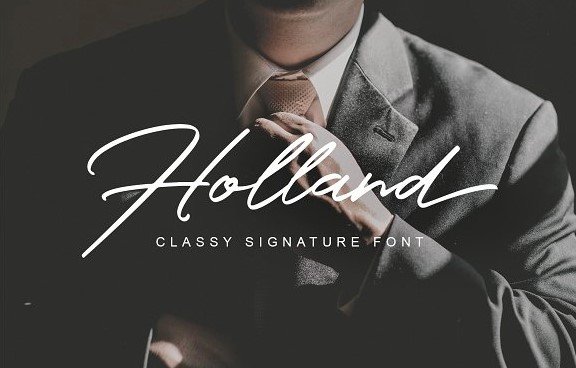
This is suitable for all types of projects and it can easily be adjusted in your projects because it can changed itelf dynamically. Or it will push you to make gorgeous designs.
NameHolland Handwrtting Font
Style Handwritten
Designer Lettersiro Co.,
This unque and elegant font which has a popular texture so that can also be used in pairing also. It can be use in the below projects.
• App design
• Posters, banners and billboards
• Catalogs
• Images for websites and blogs
• Magazine and newspaper ads
• Retail store interiors
What Type of Font Is Holland Handwriting?
The Holland Handwriting Font is the famous and scripted typeface that has amazing look and designs.
What's the Closest Font to Holland Handwriting?
The Beauty Blondies Typeface. is very close to the Holland Handwriting Font.